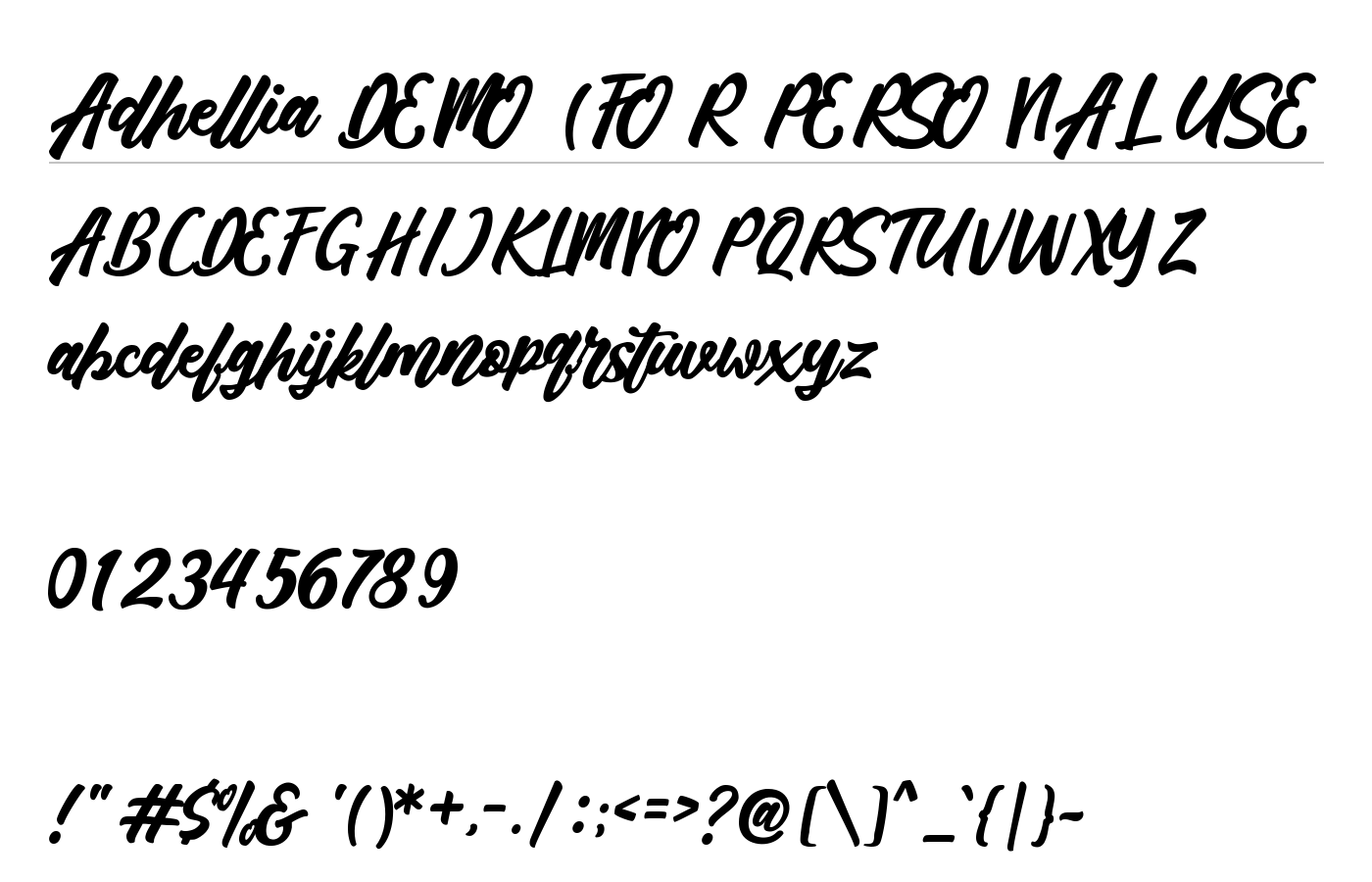
Adhellia DEMO is a lively and bold script font with a handwritten feel, featuring smooth, rounded strokes and a slight slant that adds a dynamic, casual flair. Its medium weight and playful curves make it ideal for creative branding, logos, and headlines where a personal and approachable tone is desired. This font works well in designs that seek to evoke warmth and friendliness without sacrificing readability.
Adhellia DEMO (FOR PERSONAL USE Font
About Adhellia DEMO (FOR PERSONAL USE Font
| Font family | Adhellia DEMO (FOR PERSONAL USE Font |
| Designer | Abu Rumaisha Doni |